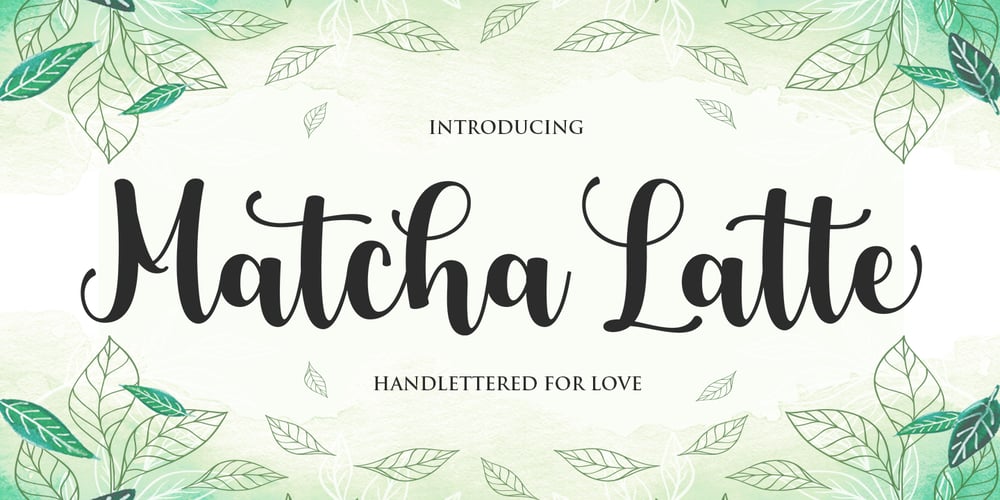
Matcha Latte
Matcha Latte font
Matcha Latte Font Family was designed by Muammar Kadafi and published by Attract Studio. Matcha Latte contains 1 styles and family package options. INTRODUCINGMatcha Latte Script is modern calligraphy font is casual and pretty with swashes. Can used for various purposes. such as logo, product packaging, wedding invitations, branding, headlines, signage, labels, signature, book covers, posters, quotes and more.Matcha Latte Script features OpenType stylistic alternates, ligatures and International support for most Western Languages is included. To enable the OpenType Stylistic alternates, you need a program that supports OpenType features such as Adobe Illustrator CS, Adobe Indesign & CorelDraw X6-X7, Microsoft Word 2010 or later versions.How to access all alternative characters using Adobe Illustrator:https://www.youtube.com/watch?v=XzwjMkbB-wQMatcha Latte Script is coded with PUA Unicode, which allows full access to all the extra characters without having special designing software. Mac users can use Font Book , and Windows users can use Character Map to view and copy any of the extra characters to paste into your favourite text editor/app.How to access all alternative characters, using Windows Character Map with Photoshop:https://www.youtube.com/watch?v=Go9vacoYmBwIf you need help or have any questions, please let me know. I’m happy to help 🙂